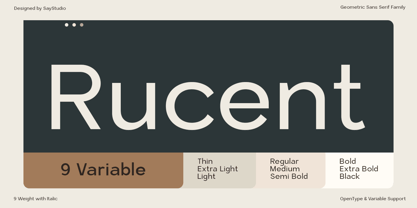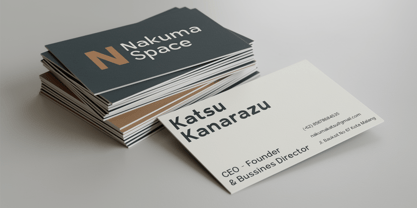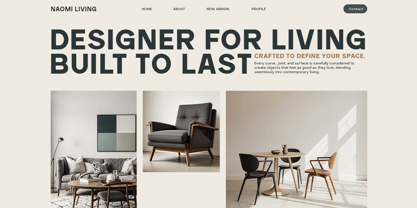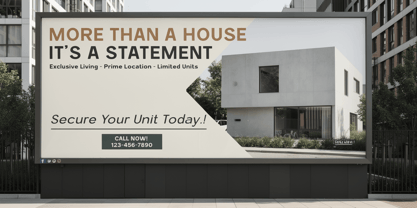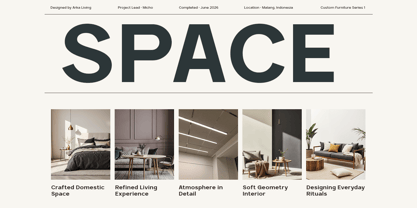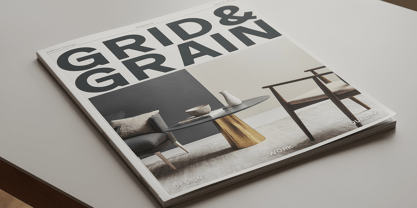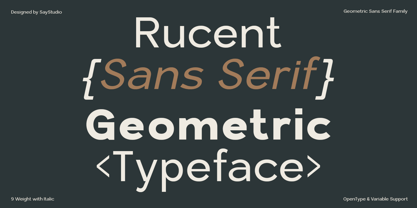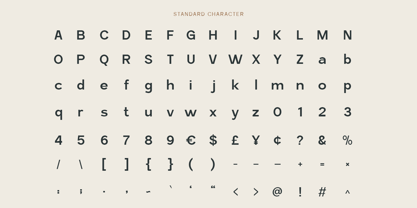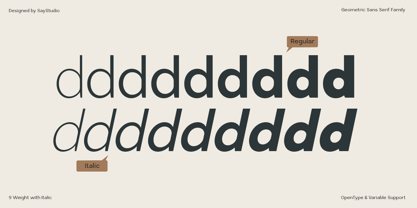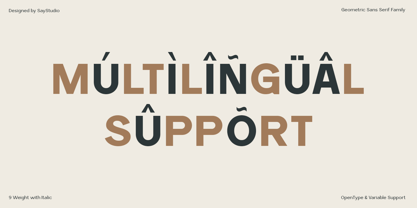
Rucent
by Say Studio
The Rucent Font Family was designed by Mussyayin and published by Say Studio. Rucent contains 18 styles and family package options. More about this family
Rucent is a modern geometric sans serif typeface crafted to deliver clarity, elegance, and contemporary strength in every design. Built with precise proportions, smooth curves, and clean structures, this font family offers a balanced visual tone that feels professional, minimal, and timeless. With 9 variable weights and full italic support, Rucent provides exceptional flexibility, allowing designers to create dynamic visual hierarchies across digital and print projects with ease. Designed for versatility, Rucent is perfect for branding systems, logo design, editorial layouts, UI/UX interfaces, mobile apps, websites, corporate presentations, advertising campaigns, social media content, packaging, posters, motion graphics, and product mockups. Its geometric foundation ensures consistent readability while maintaining a refined aesthetic, making it ideal for both bold headlines and comfortable body text. Whether you're building a tech startup identity, luxury brand visuals, or creative studio portfolios, Rucent adapts seamlessly to any design direction. From minimalist branding to futuristic interfaces, Rucent empowers designers to communicate messages with confidence, clarity, and modern sophistication. Its multi-weight family and variable font capabilities allow complete typographic control, enabling expressive compositions, responsive layouts, and scalable systems across all platforms. Rucent is the perfect choice for designers seeking a reliable, clean, and contemporary sans serif font that elevates every visual project. Thank You, Have a Good Day! Saystudio
Designers: Mussyayin
Foundry: Say Studio